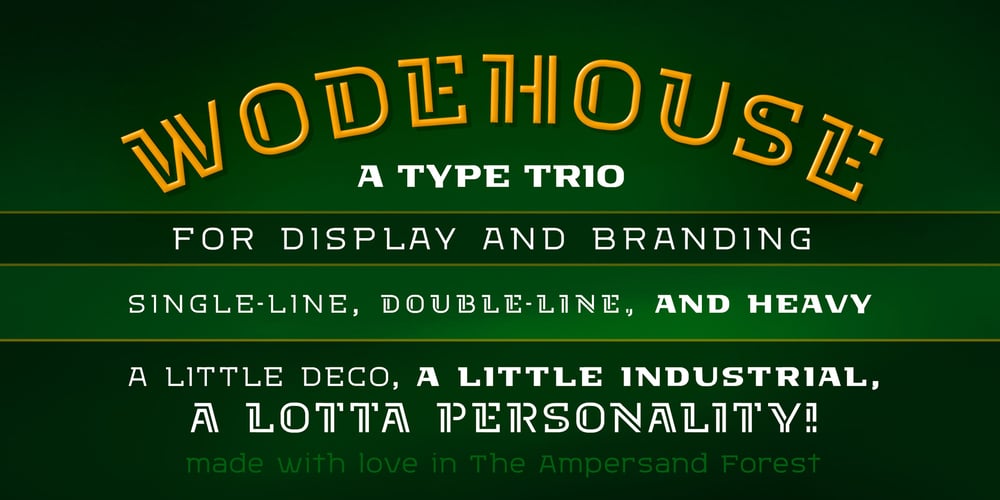
Wodehouse Font Family was designed by DC Scarpelli and published by The Ampersand Forest. Wodehouse contains 3 styles and family package options. If you create a lot of designs for display, then you know how invaluable a good, solid, geometric face is. Wodehouse is here to deliver. It has both a vintage, between-the-wars look and feel and a geometry with superelliptical rounds that embrace later, more modular designs. It’s a little Deco, a little Moderne, a little Industrial and a lotta personality.Wodehouse has style. Wodehouse stands out. Right ho, Woodhouse!